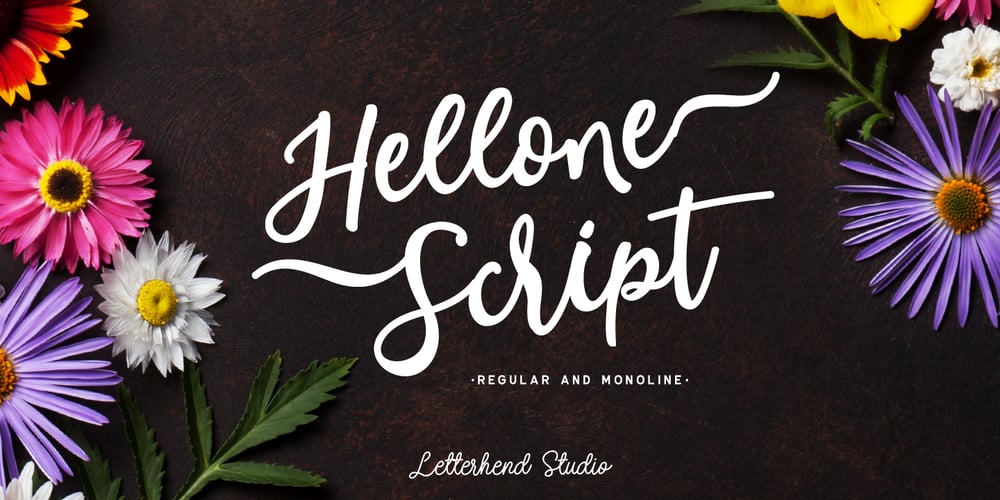
Hellone Script Font Family was designed by Hendry Juanda and published by Letterhend. Hellone Script contains 2 styles and family package options. Hellone Script is a lovely font duo and comes in two styles: monoline and regular. They are perfect for projects with feminine or girly theme! You can play with the ligatures, stylistic alternate, swash, etc to create your own customized lettering. This font is also support multi-language.